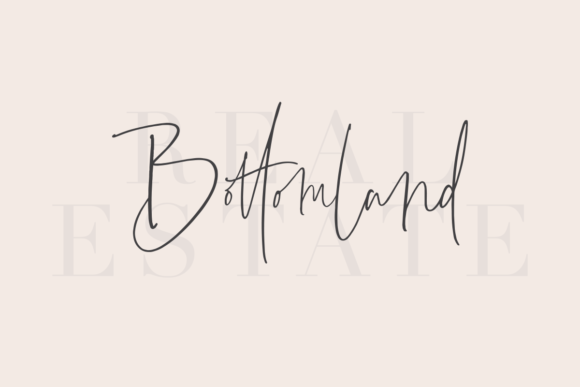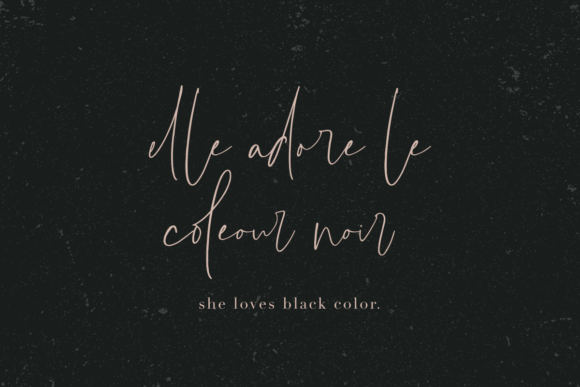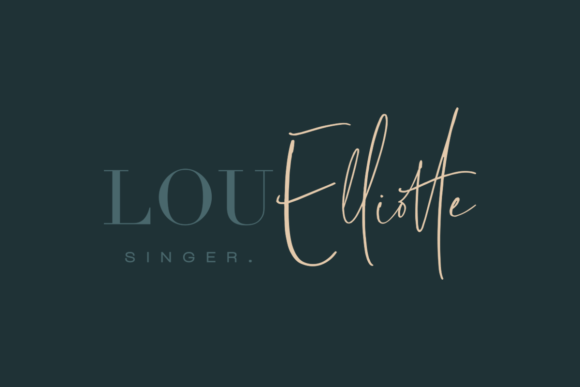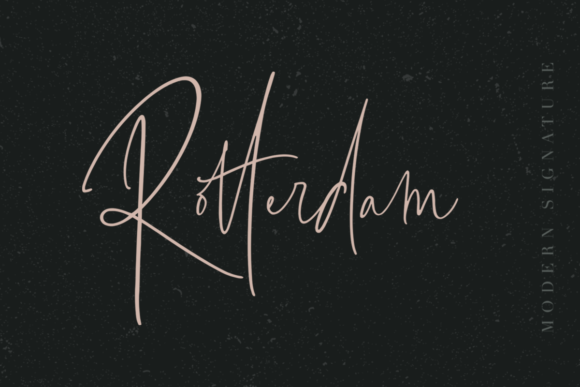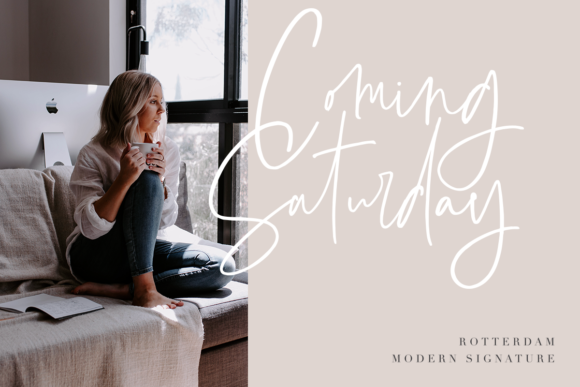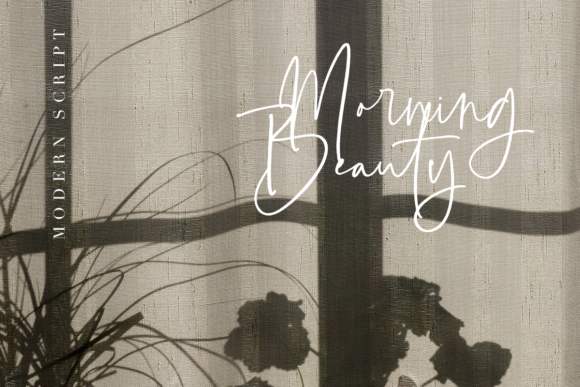
The Font that Stole My Heart: A Deep Dive into Bottomland
I still remember the design project that led me to discover Bottomland. I was working on a branding project for a trendy new coffee shop, and I was struggling to find the perfect font. The client wanted something modern, yet elegant, and I was determined to deliver. After hours of scouring font libraries and trying out different combinations, I stumbled upon Bottomland. Its stylish letter shapes and contemporary twist immediately caught my eye, and I knew I had found the one.
What I Love About Bottomland ✨
- Unique and stylish letter shapes that add a touch of sophistication to any project ✅
- Contemporary twist that makes it perfect for modern designs 🌟
- Excellent legibility, even at small font sizes 🔍
- Versatile and suitable for a wide range of projects, from branding to packaging 📦
- Some users may find the font a bit too condensed for certain applications ⚠️
- Limited availability of extended language support 📚
Exploring OpenType Features, Glyphs, and Stylistic Alternates
One of the standout features of Bottomland is its support for OpenType features, glyphs, and stylistic alternates. These features allow you to add more creativity and customization to your designs. Here are a few examples:
- Stylistic alternates: Switch between different font styles, such as italic or bold, to add visual interest to your design
- Glyphs: Access a wide range of glyphs, including ligatures, ornaments, and swashes, to add more personality to your text
- OpenType features: Take advantage of advanced typography features, such as kerning and tracking, to fine-tune your font
The story behind Bottomland’s design is one of creativity and experimentation. According to the designer, the font was inspired by the natural world and the curves of the landscape. The goal was to create a font that’s both modern and timeless, with a unique personality that sets it apart from other fonts.
Q: What type of projects is Bottomland suitable for?
A: Bottomland is a versatile font that’s suitable for a wide range of projects, from branding and packaging to digital and print design.
Q: Is Bottomland available in different font weights?
A: Yes, Bottomland comes in a range of font weights, from light to bold. This allows you to use it for a variety of applications, from body text to headlines.